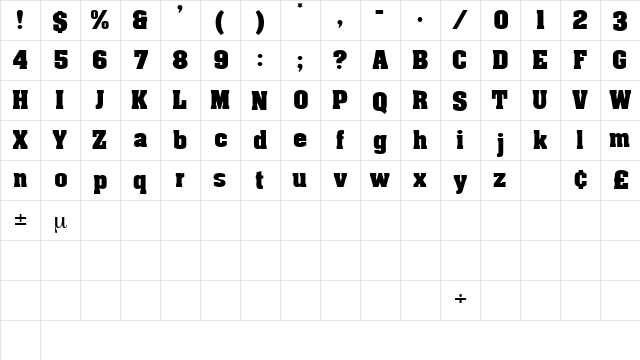
EuphemiaDisplaySSK Regular
Design Context for EuphemiaDisplaySSK Typeface
EuphemiaDisplaySSK brings ornamental detail and strong personality to headlines and identities, where visual impact matters more than quiet functionality.
Font Pairing: Pair with a clean neutral sans-serif for body copy to let EuphemiaDisplaySSK's character lead without overwhelming the composition.
Pro Tip: Treat EuphemiaDisplaySSK as the centrepiece of your typographic hierarchy. One strong heading set in a decorative face can carry an entire layout.